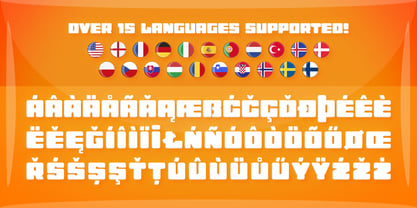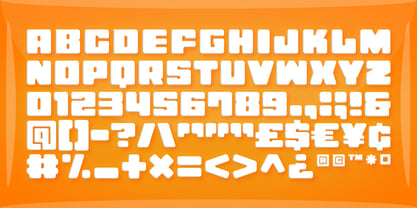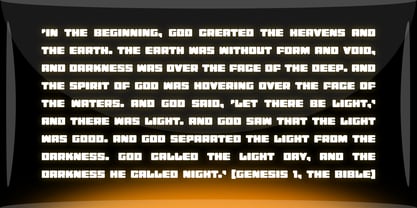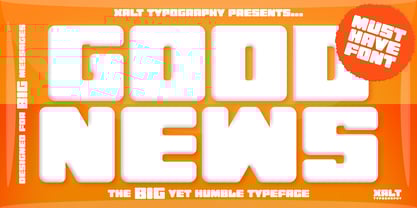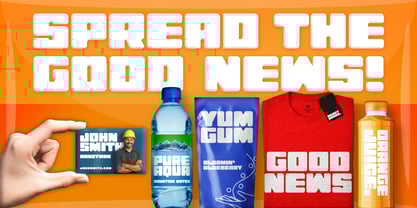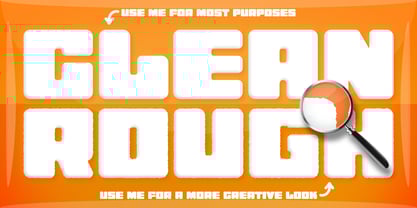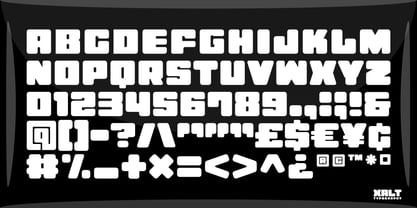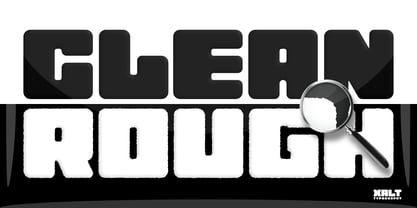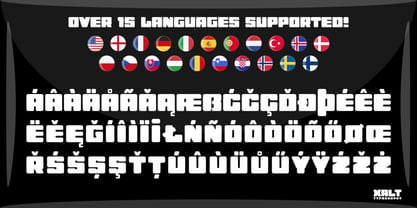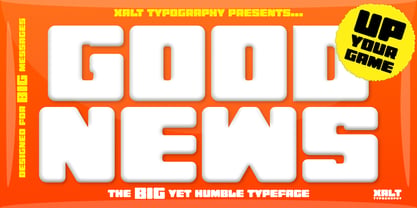
Good News
The Good News Font Family was designed by Asa Childress and published by XALT Typography. Good News contains 2 styles and family package options.
Good News is your new go-to typeface for BIG, bold messages! It’s confident, yet humble. Impactful, yet gentle. Strong, yet friendly. FEATURES • Available in two powerful styles (Regular + Rough) for ultimate versatility • Over 200 carefully crafted glyphs per style (400+ total), including useful alternates • Supports 15+ languages for wide-reaching use • Designed with precision – consistent spacing, clean curves, and a fresh modern feel • Looks stunning at any size – perfect for attention-grabbing titles, sharp logos, or clean body text • Affordable – achieve pro designs without breaking the bank! • Built to look amazing, whatever you type! Good News is an excellent choice for T-shirt designs, merchandise graphics, logos, posters & print, social media visuals, promotional materials, publications, greeting cards, crafts, and more! I hope Good News will serve you well as the voice of your message to the world (as long as it’s a good one!).